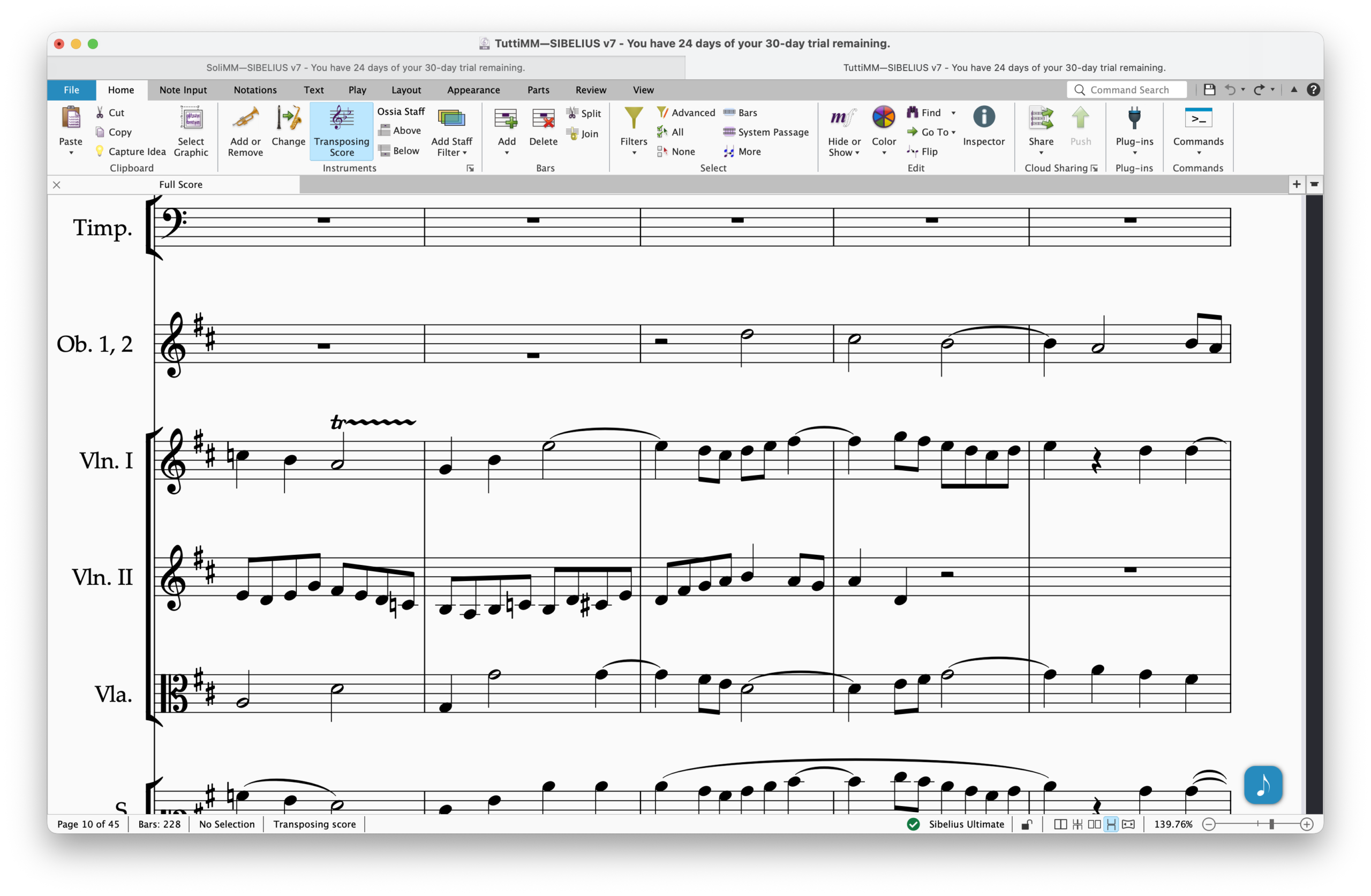
Soli is an elegant engraver music font made from scratch, yet more robust than some other music fonts, but more accurately represents the look of smooth engraved music and work with Sibelius as an alternative to Opus, and Helsinki fonts.
This is Soli’s sister font, Tutti is an elegant engraver music font with a thick appearance, yet more robust than some other music fonts, but more accurately represents the look of smooth engraved music and works with Sibelius as an alternative to Opus, and Helsinki fonts
SOLI Font
TUTTI Font